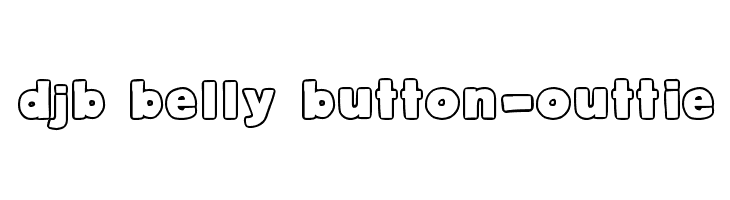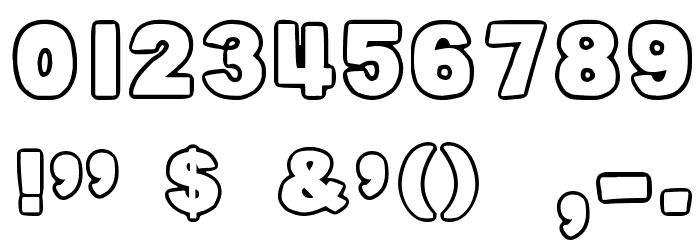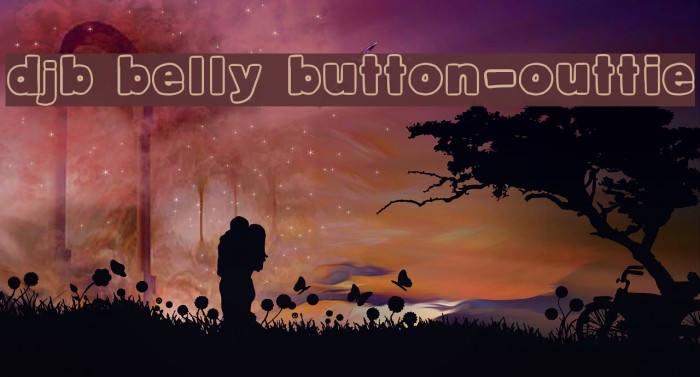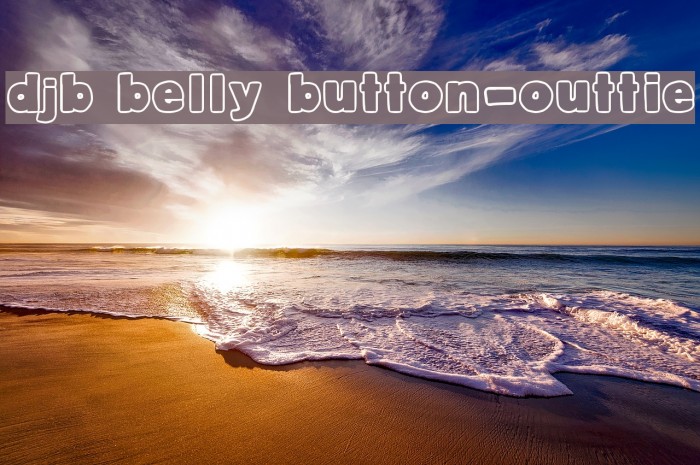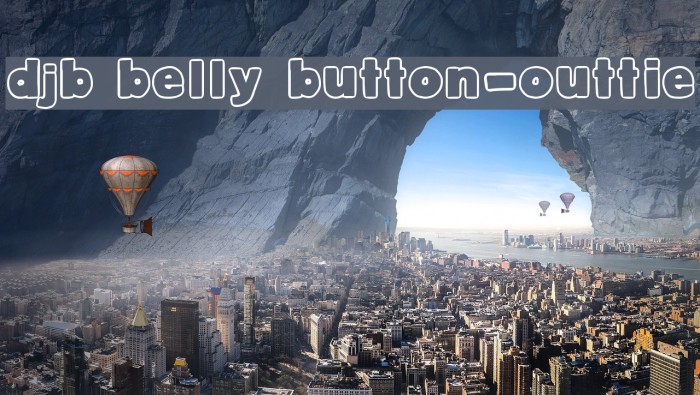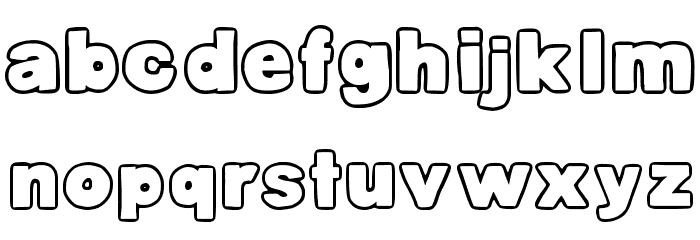
DJB Belly Button-Outtie Font
DJB Belly Button-Outtie Description
This playful and bold font features thick, rounded letters with a distinct outline that gives it a fun and approachable look. The characters are uniform in width, creating a cohesive and balanced appearance. The font's style is reminiscent of bubble letters, making it ideal for projects that require a touch of whimsy and creativity. Its clear and legible design ensures readability while maintaining a unique and eye-catching aesthetic. The numbers and special characters are consistent with the alphabet, maintaining the same bold and outlined style. This font is perfect for children's books, playful branding, or any design that aims to convey a sense of fun and friendliness.
A playful, bold font with rounded, outlined characters perfect for whimsical designs from Cartoon fonts.
- Proposed Projects: Children's books, playful branding, posters, party invitations, and educational materials.
- Overall Style: Playful, Whimsical